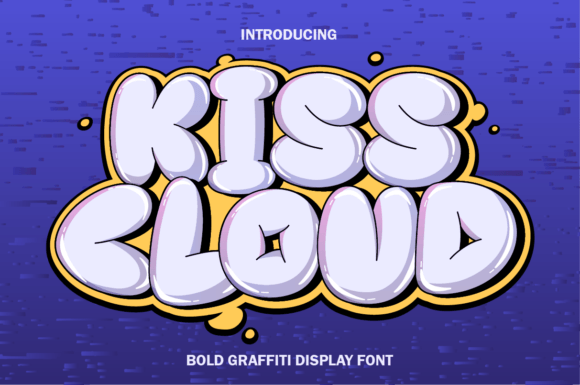
Introducing Kiss Cloud Font, the ultimate choice for all your creative powerpoint titles! Designed by the talented team at SVG Bloom, this captivating display font is here to make your designs stand out from the crowd. With its graffiti-inspired style, Kiss Cloud Graffiti font brings a playful and fun element to any project.
Are you looking to create eye-catching street shirts? Look no further! Kiss Cloud Graffiti is the font you've been dreaming of. Its unique and artistic design will instantly elevate your streetwear game, making heads turn wherever you go. Let your imagination run wild as you effortlessly mix and match this font with street elements, creating a perfect harmony that exudes urban coolness.
With three variations to choose from, regular, outline, and shadow, Kiss Cloud Font offers endless possibilities. Whether you prefer a bold statement or a subtle touch, this font has got you covered. The regular style is perfect for adding a touch of vibrancy and liveliness to your designs. The outline style adds a modern and edgy twist, giving your titles a contemporary flair. And the shadow style brings depth and dimension, making your text pop off the page.
But why stop at street shirts? Kiss Cloud Graffiti Font is versatile, allowing you to unleash your creativity across various projects. From logos to posters, flyers to social media graphics, this font will inject energy and personality into every design. Say goodbye to boring and hello to captivating!
Remember, Kiss Cloud Font is not just a font; it's a statement, an emotion, and a creative journey waiting to happen. Embrace the graffiti-inspired charm and unleash your inner artist. Download now and let your designs take flight!